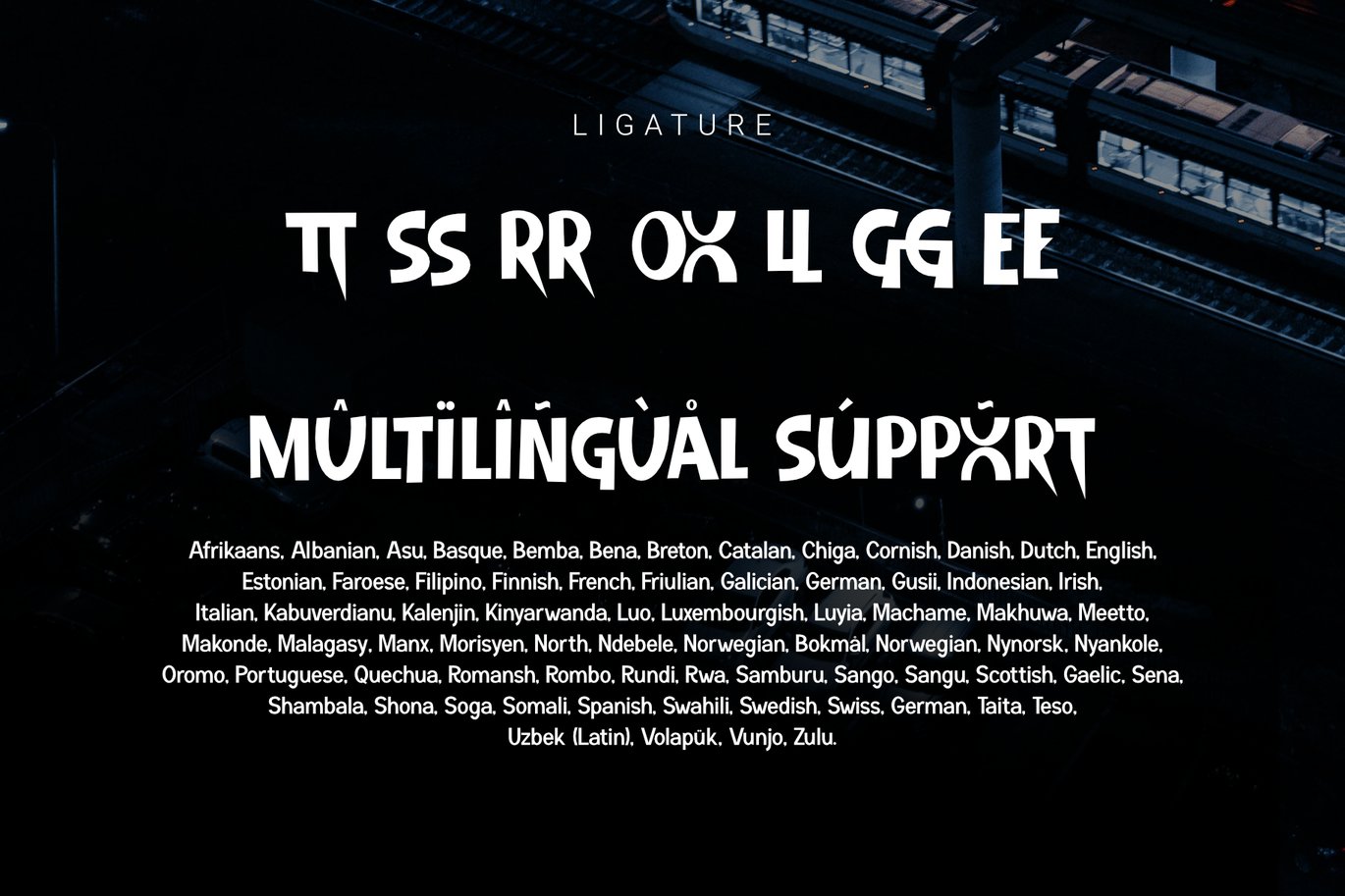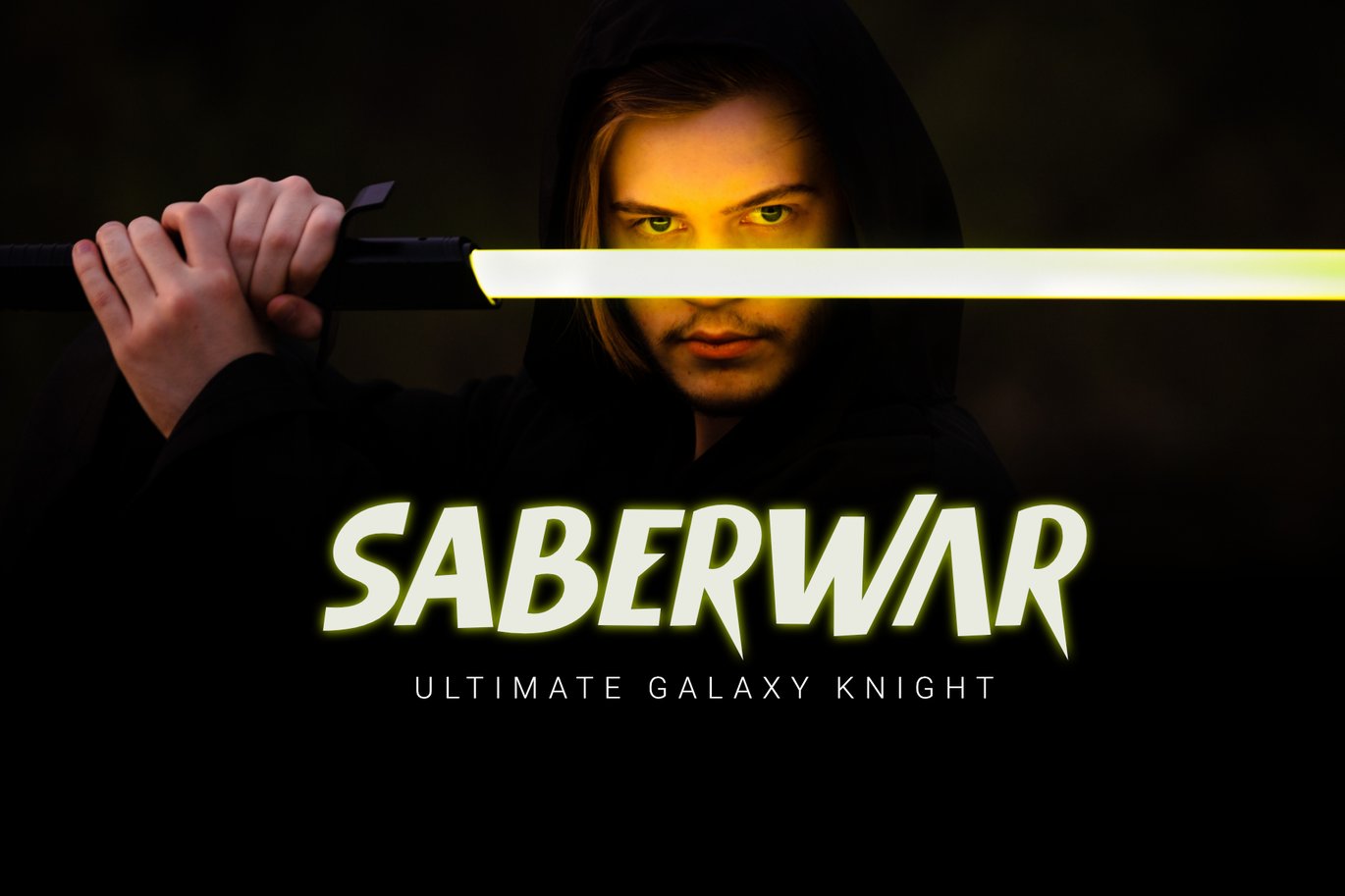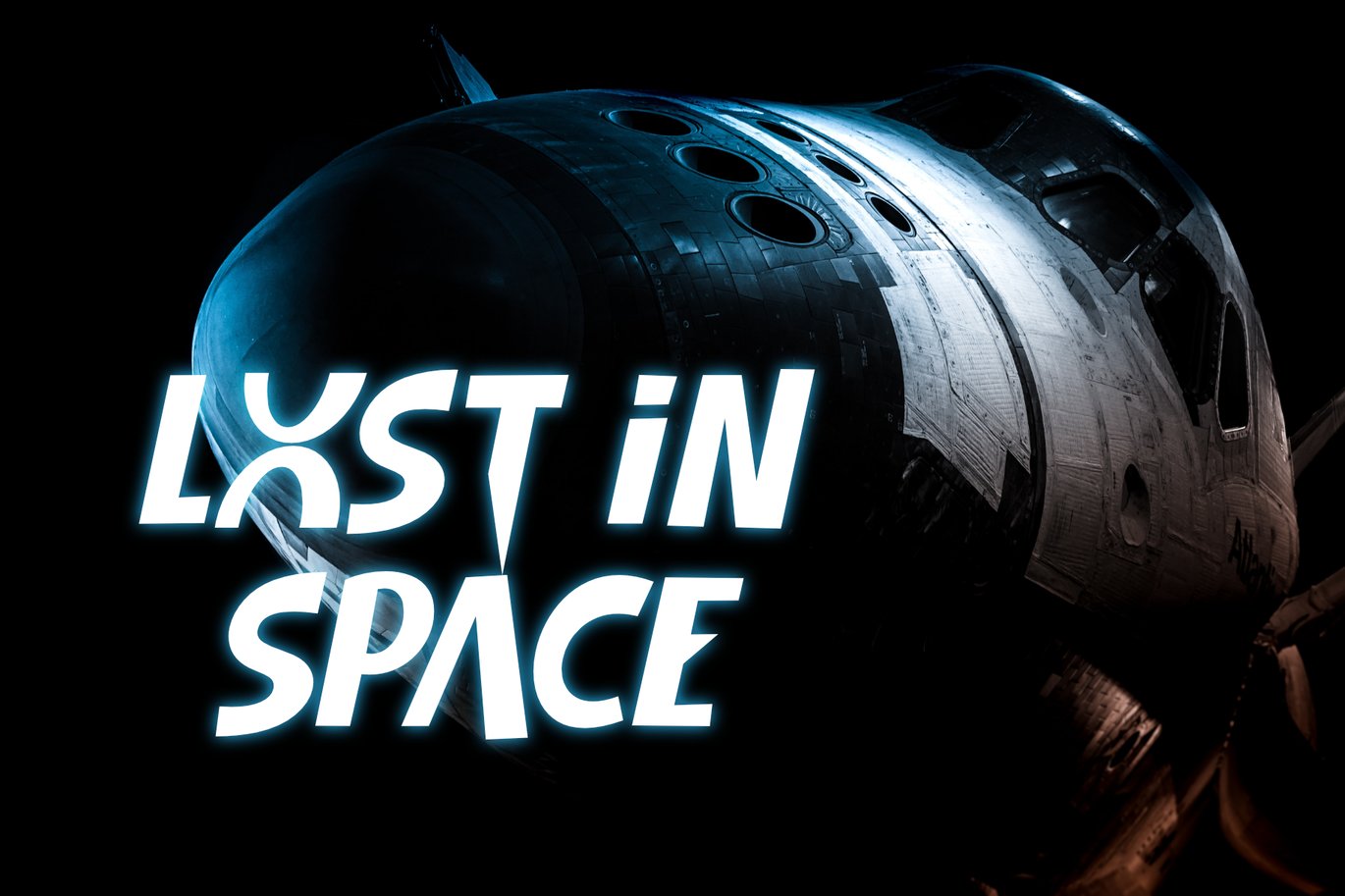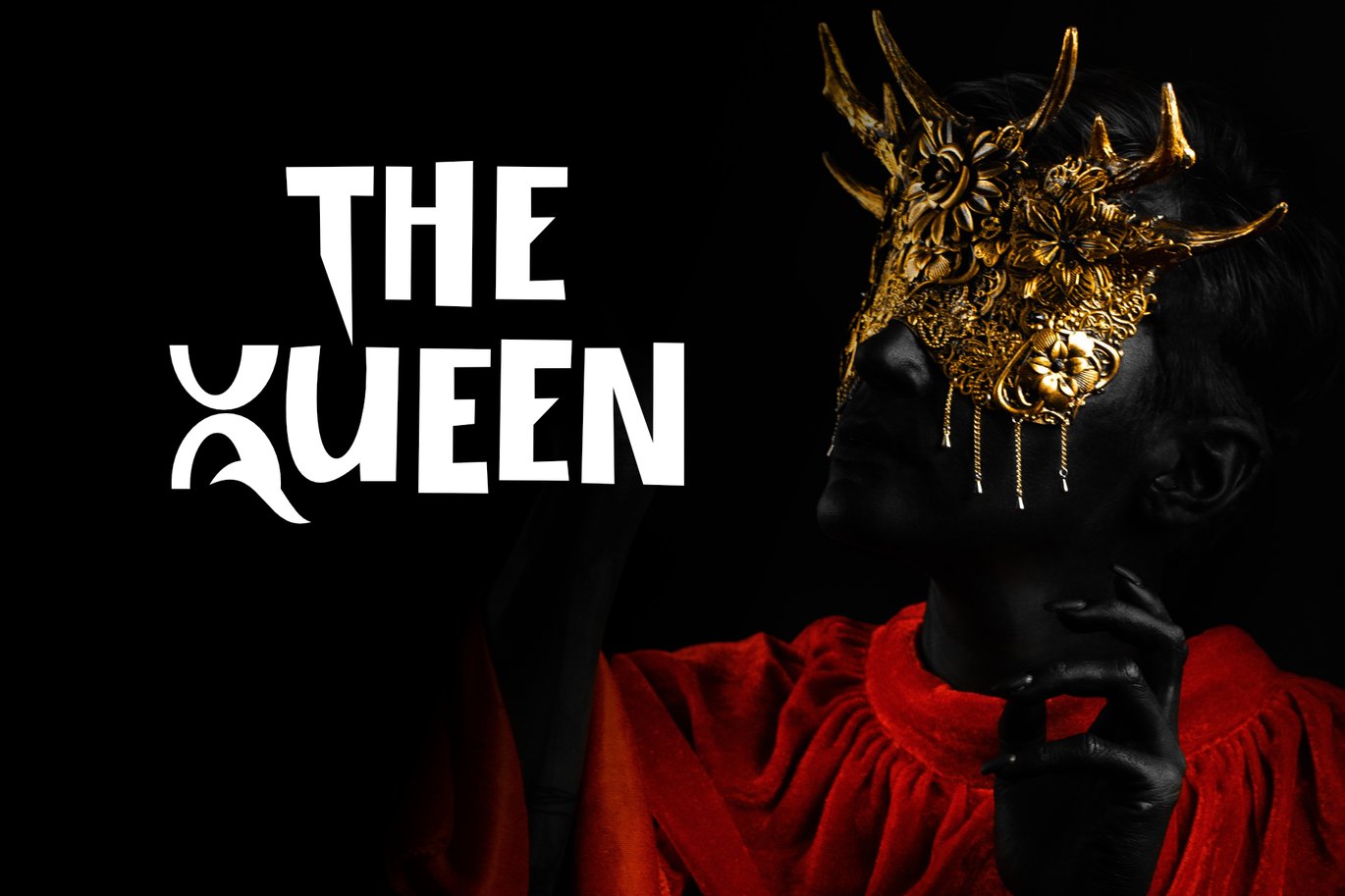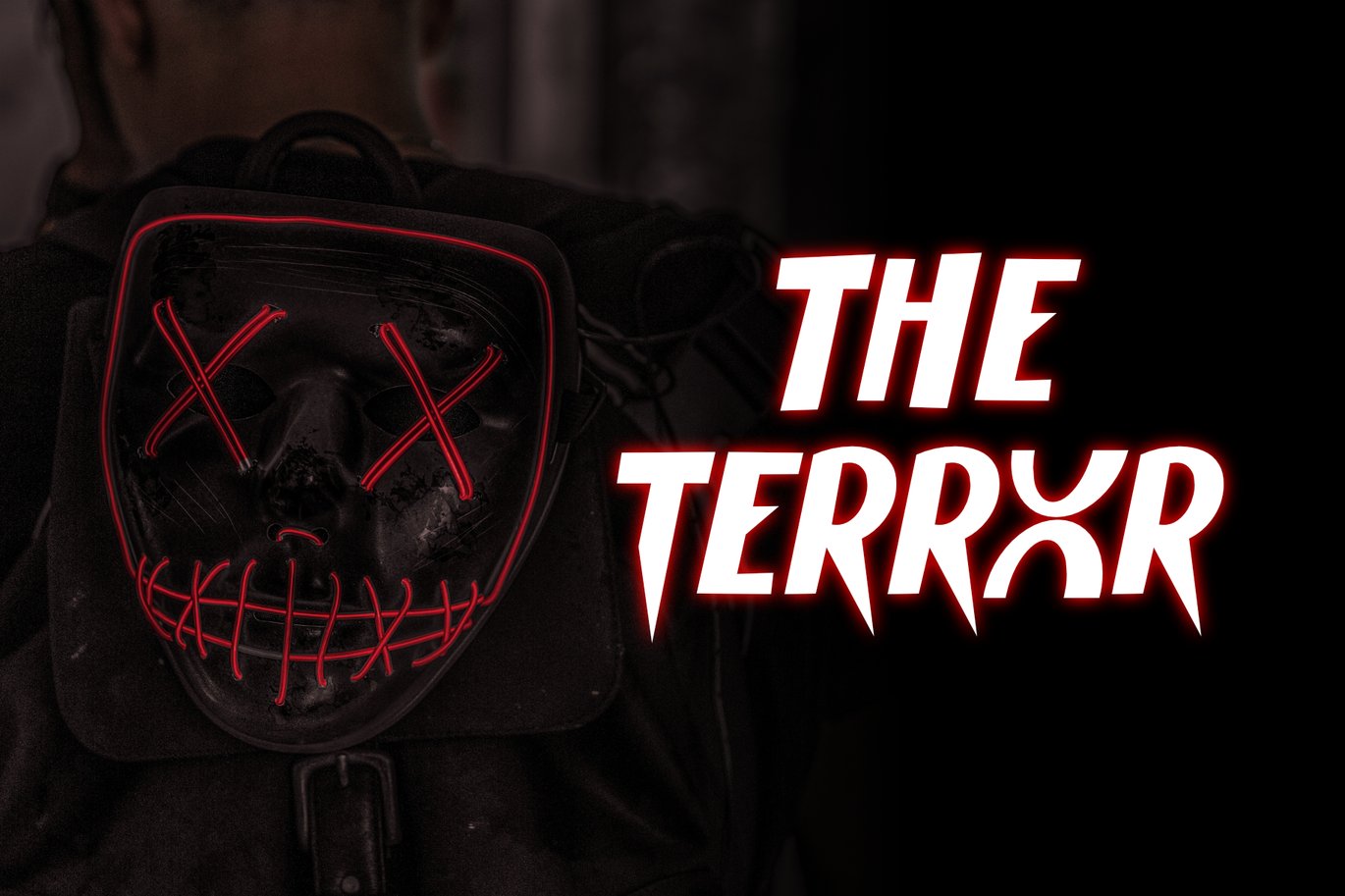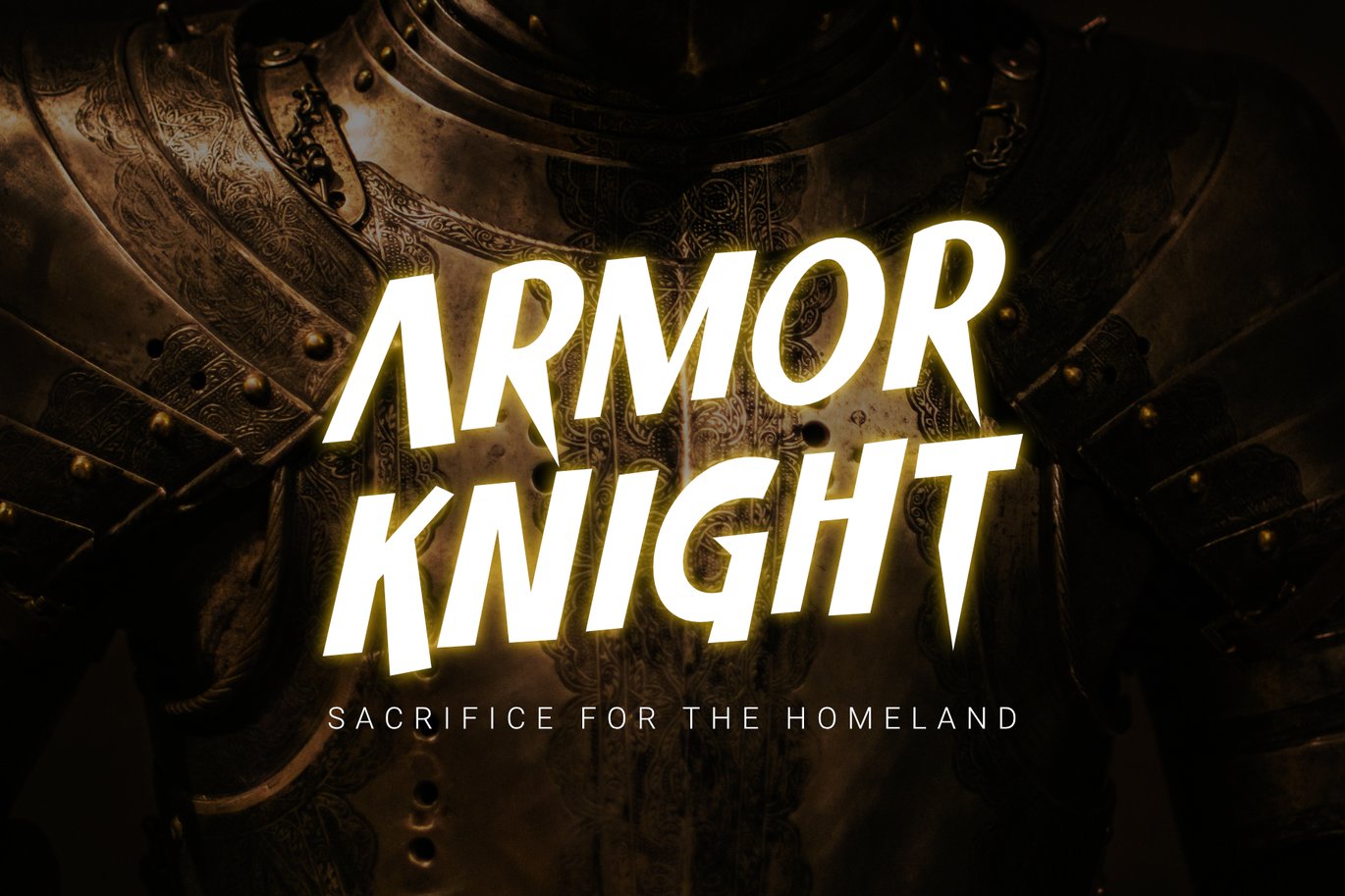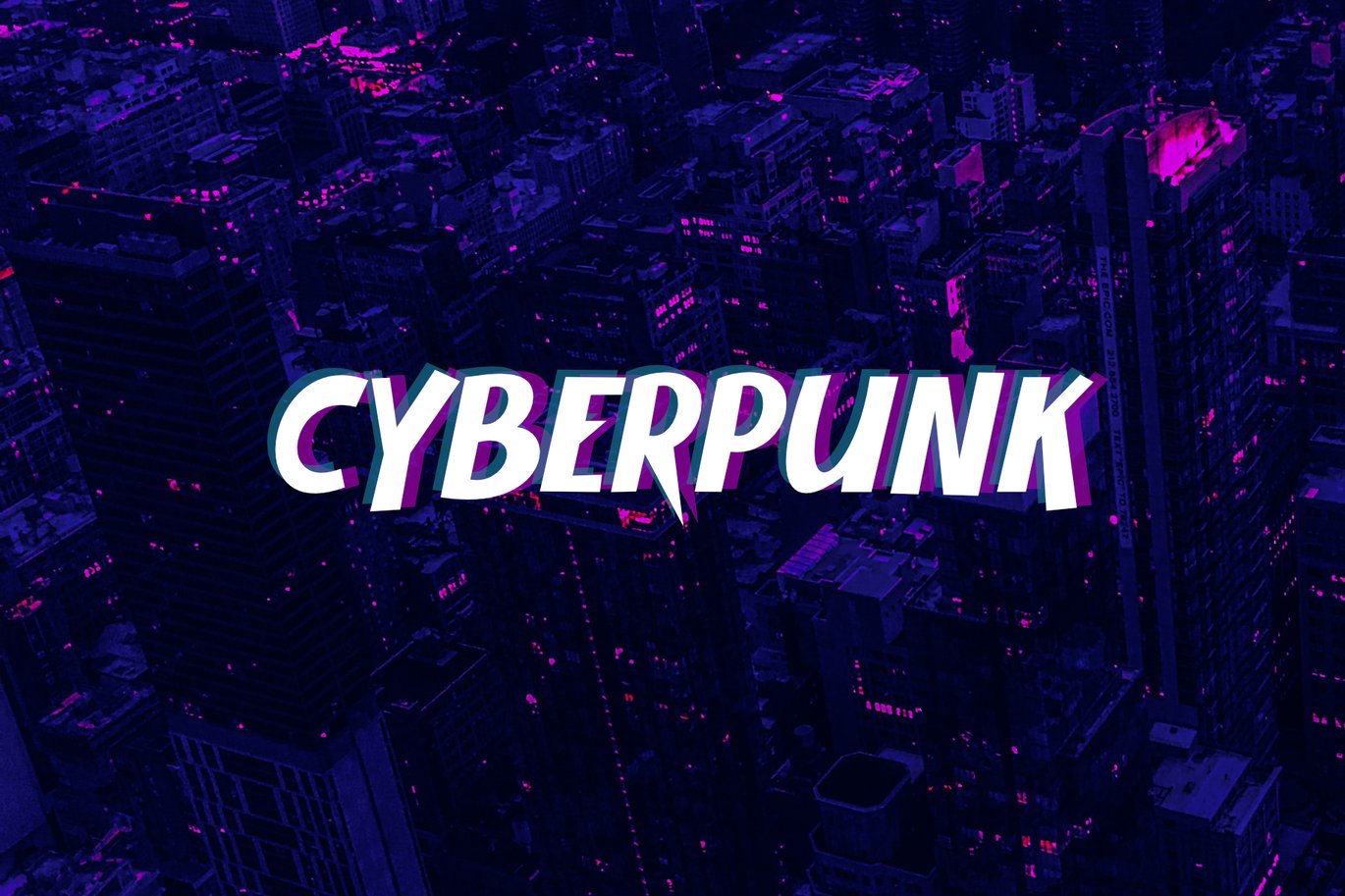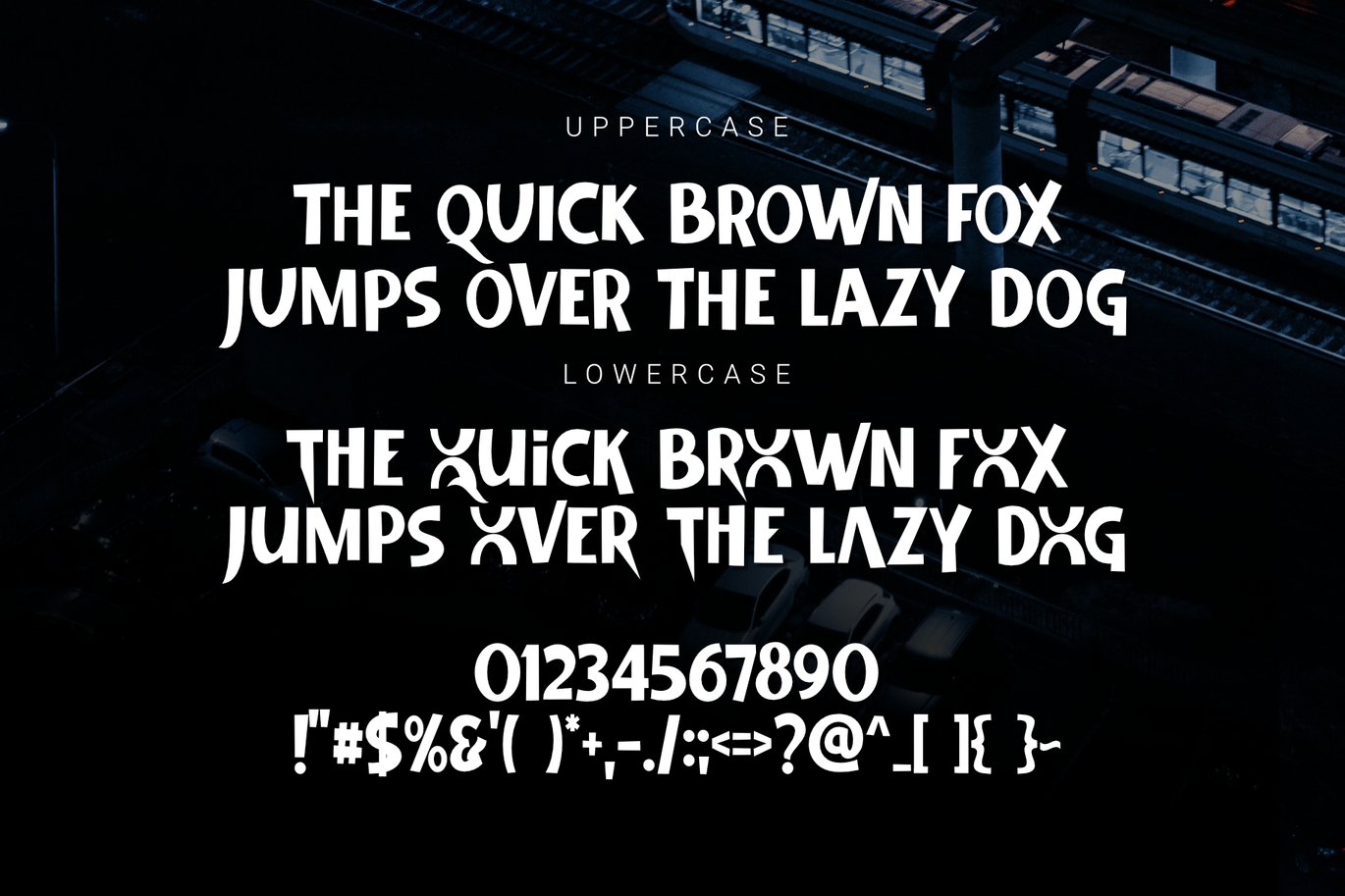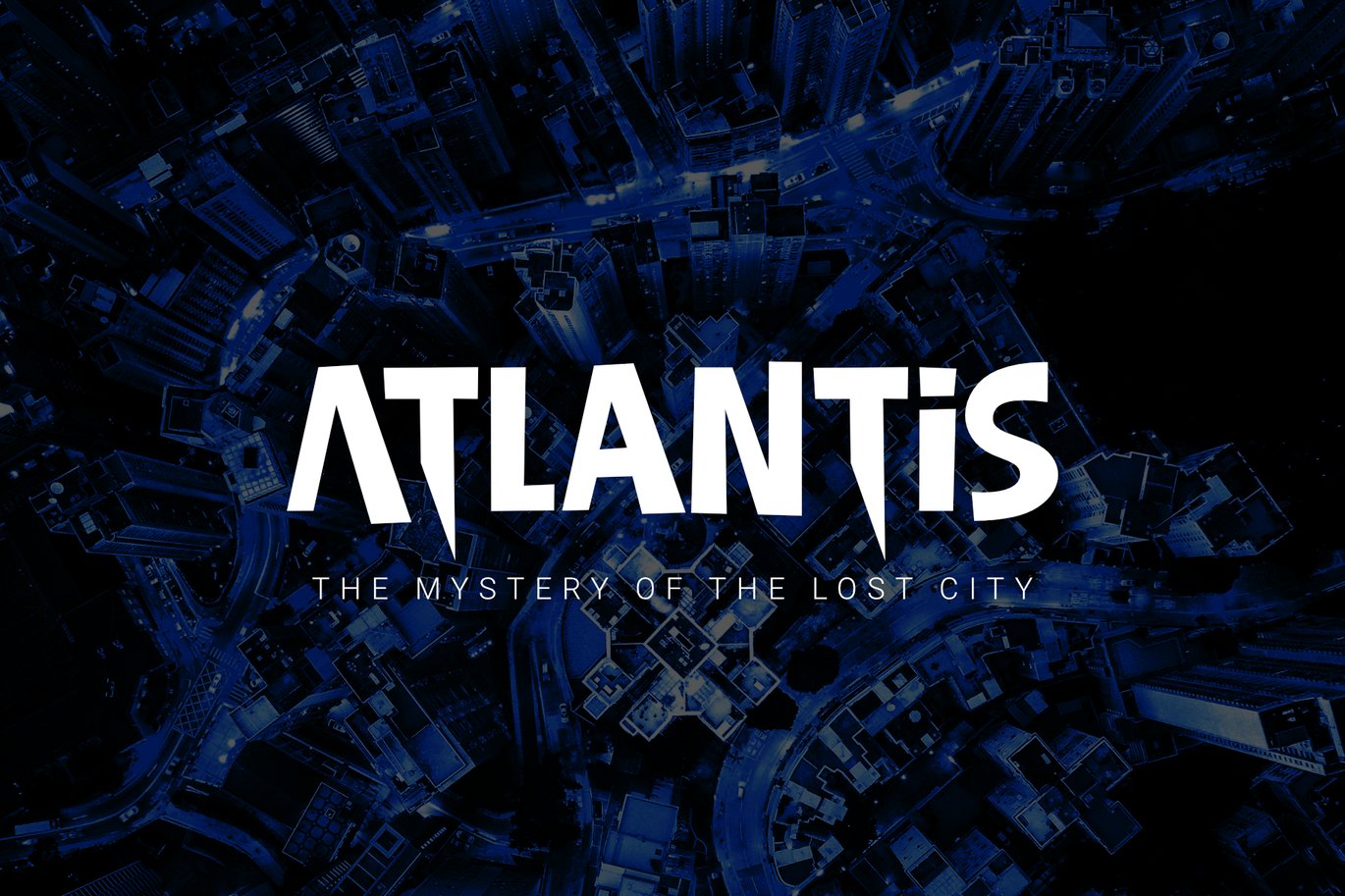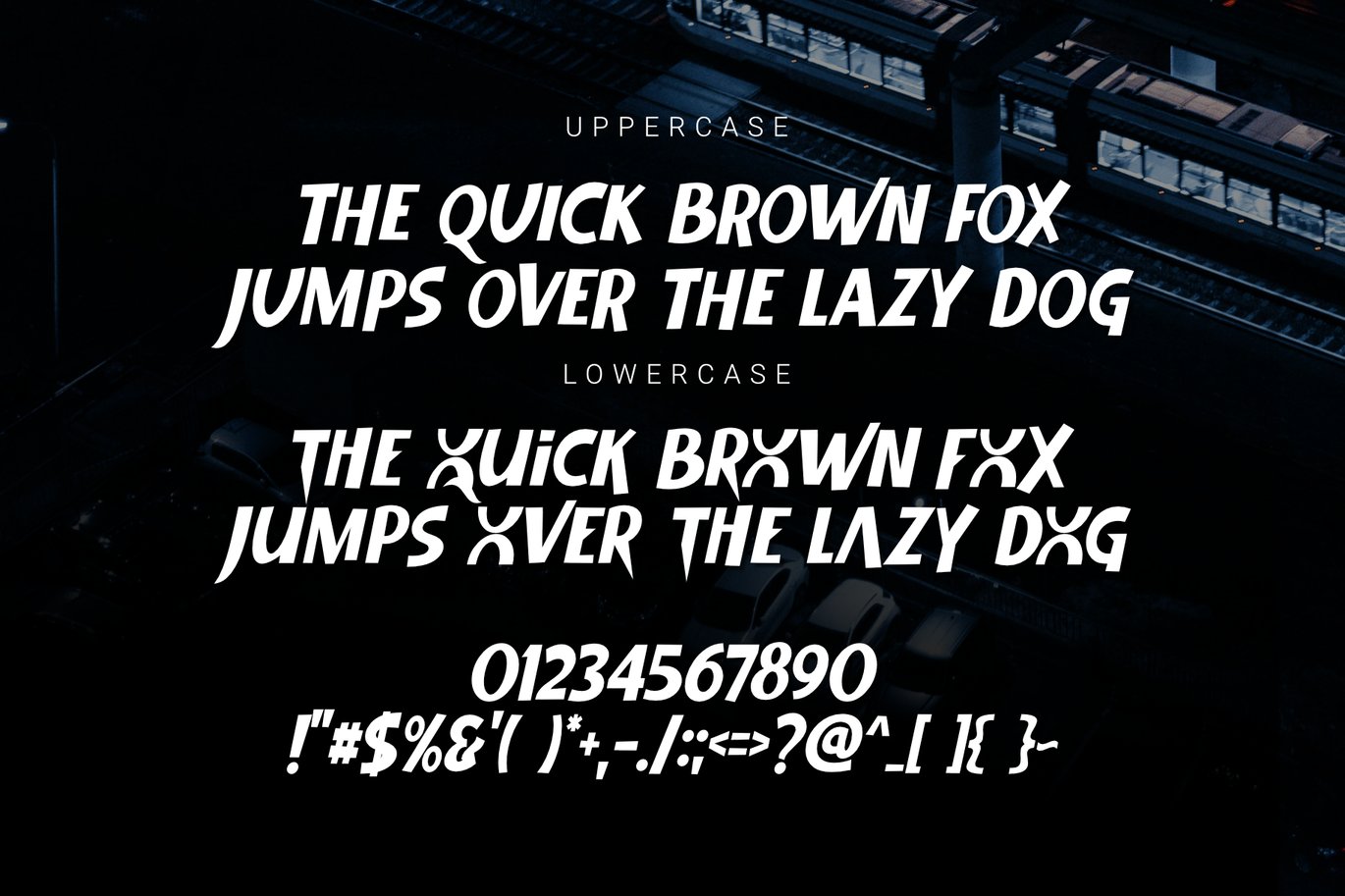
Elegant Display Font for Branding
This elegant display font is perfect for branding and marketing. Its clean, modern design makes it ideal for headlines and logos. A versatile sans serif typeface for any project, offering both style and readability. Perfect for designers looking to create sophisticated and impactful visual identities. Enhance your branding with a font that combines elegance and functionality.
- Multilingual Accent
These Font Support Languages:
Afrikaans, Albanian, Asu, Basque, Bemba, Bena, Breton, Catalan, Chiga, Cornish, Danish, Dutch, English, Estonian, Faroese, Filipino, Finnish, French, Friulian, Galician, German, Gusii, Indonesian, Irish, Italian, Kabuverdianu, Kalenjin, Kinyarwanda, Luo, Luxembourgish, Luyia, Machame, Makhuwa, Meetto, Makonde, Malagasy, Manx, Morisyen, North, Ndebele, Norwegian, Bokmål, Norwegian, Nynorsk, Nyankole, Oromo, Portuguese, Quechua, Romansh, Rombo, Rundi, Rwa, Samburu, Sango, Sangu, Scottish, Gaelic, Sena, Shambala, Shona, Soga, Somali, Spanish, Swahili, Swedish, Swiss, German, Taita, Teso, Uzbek (Latin), Volapük, Vunjo, Zulu.